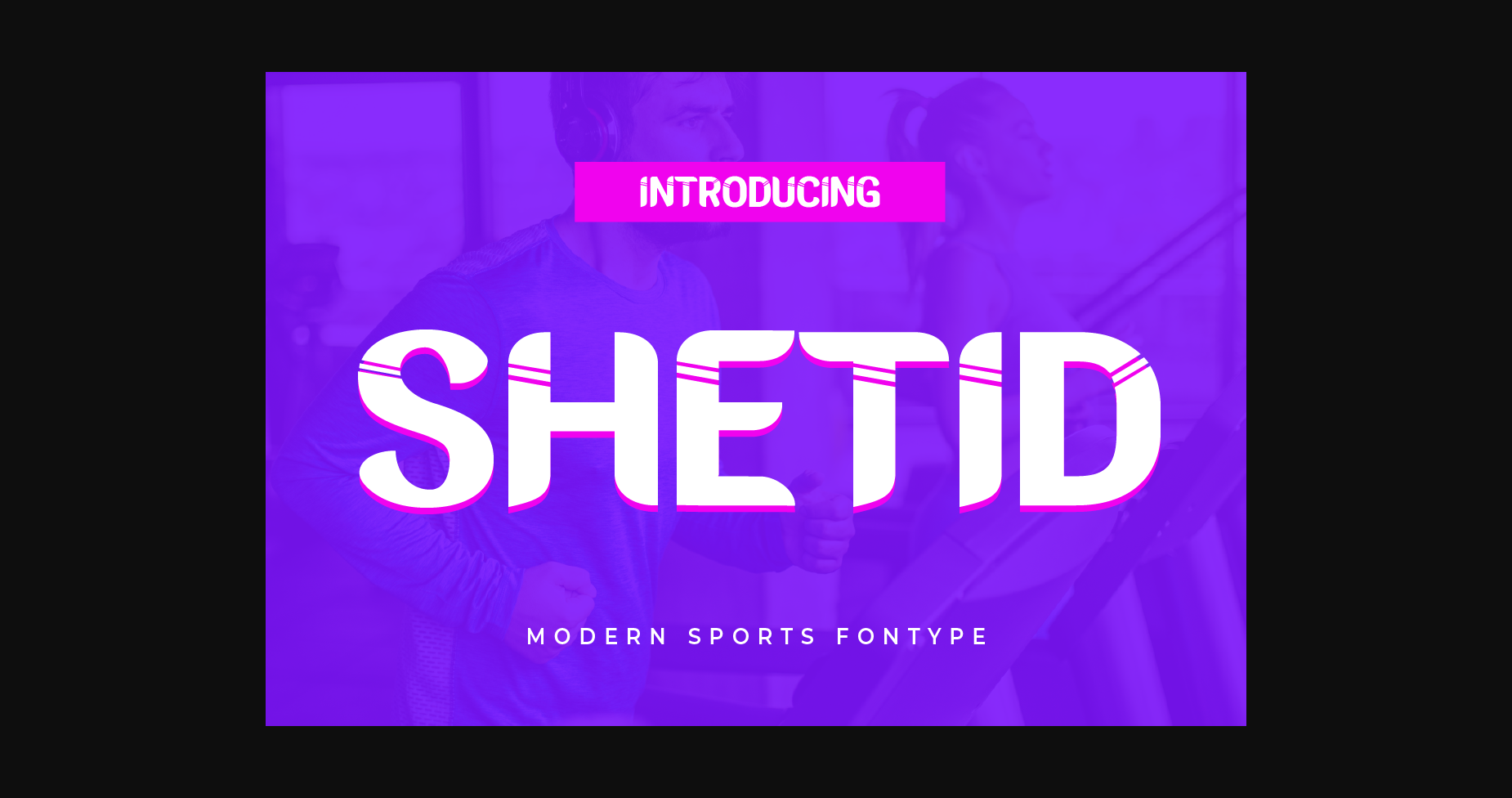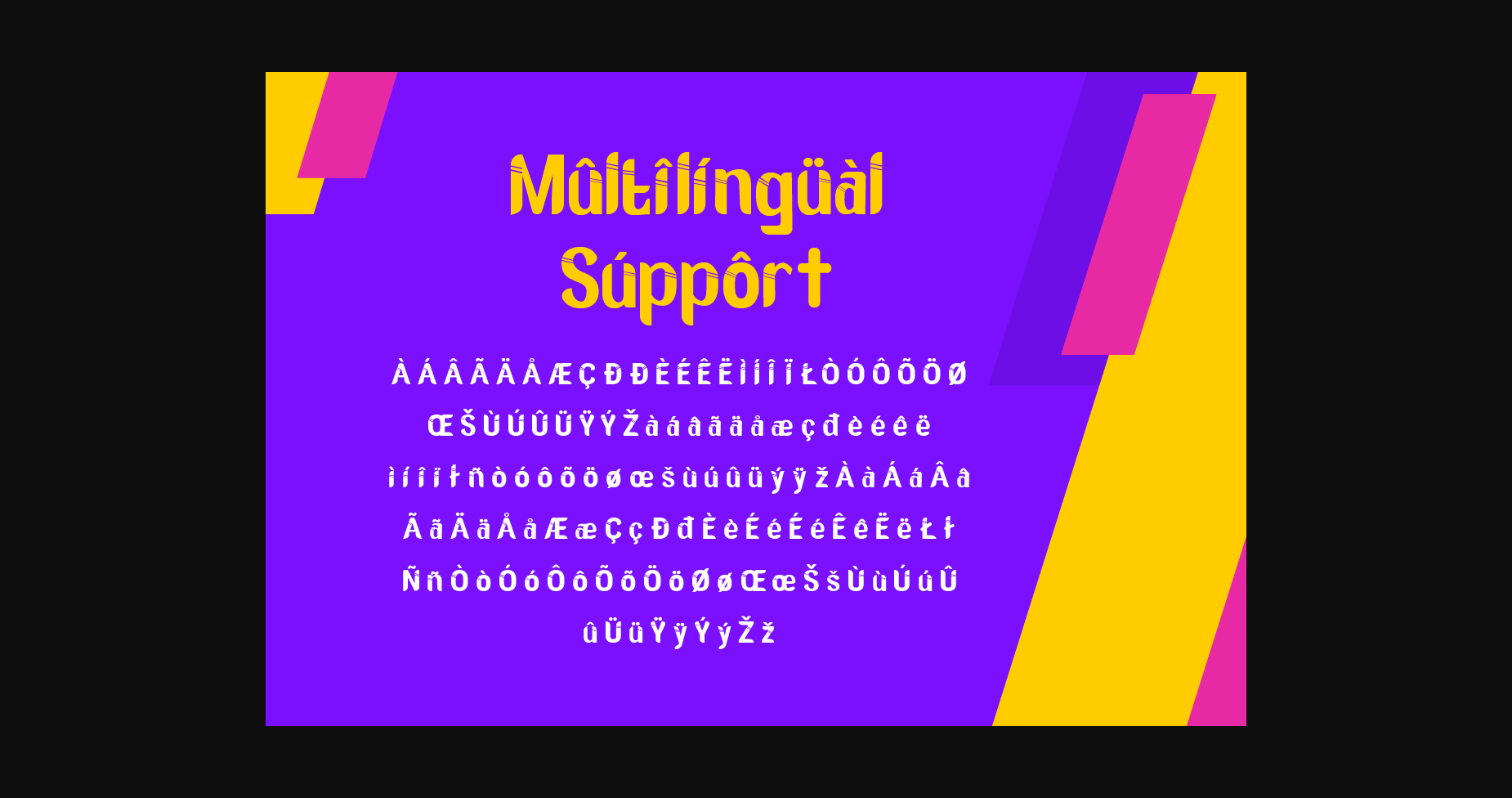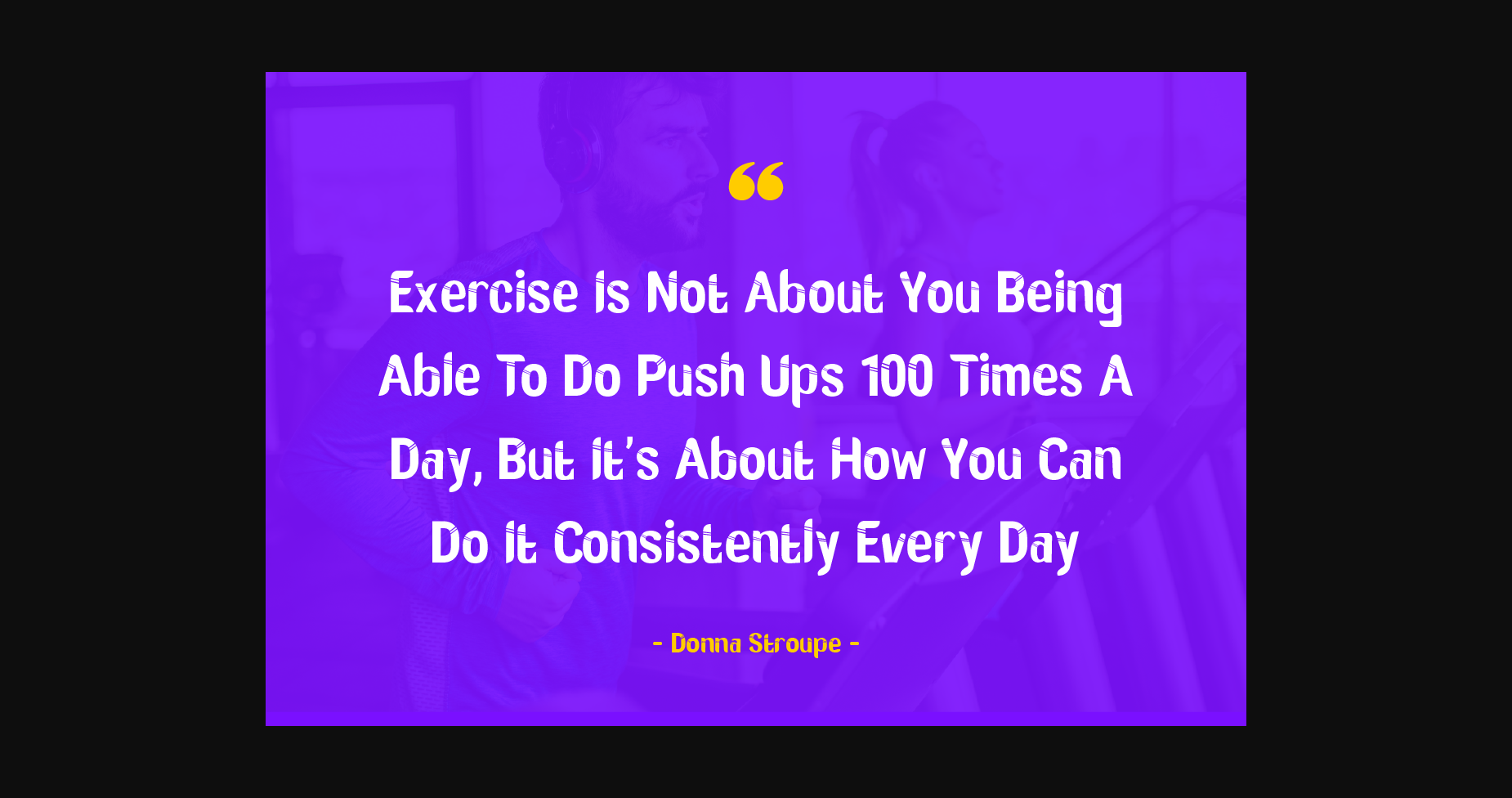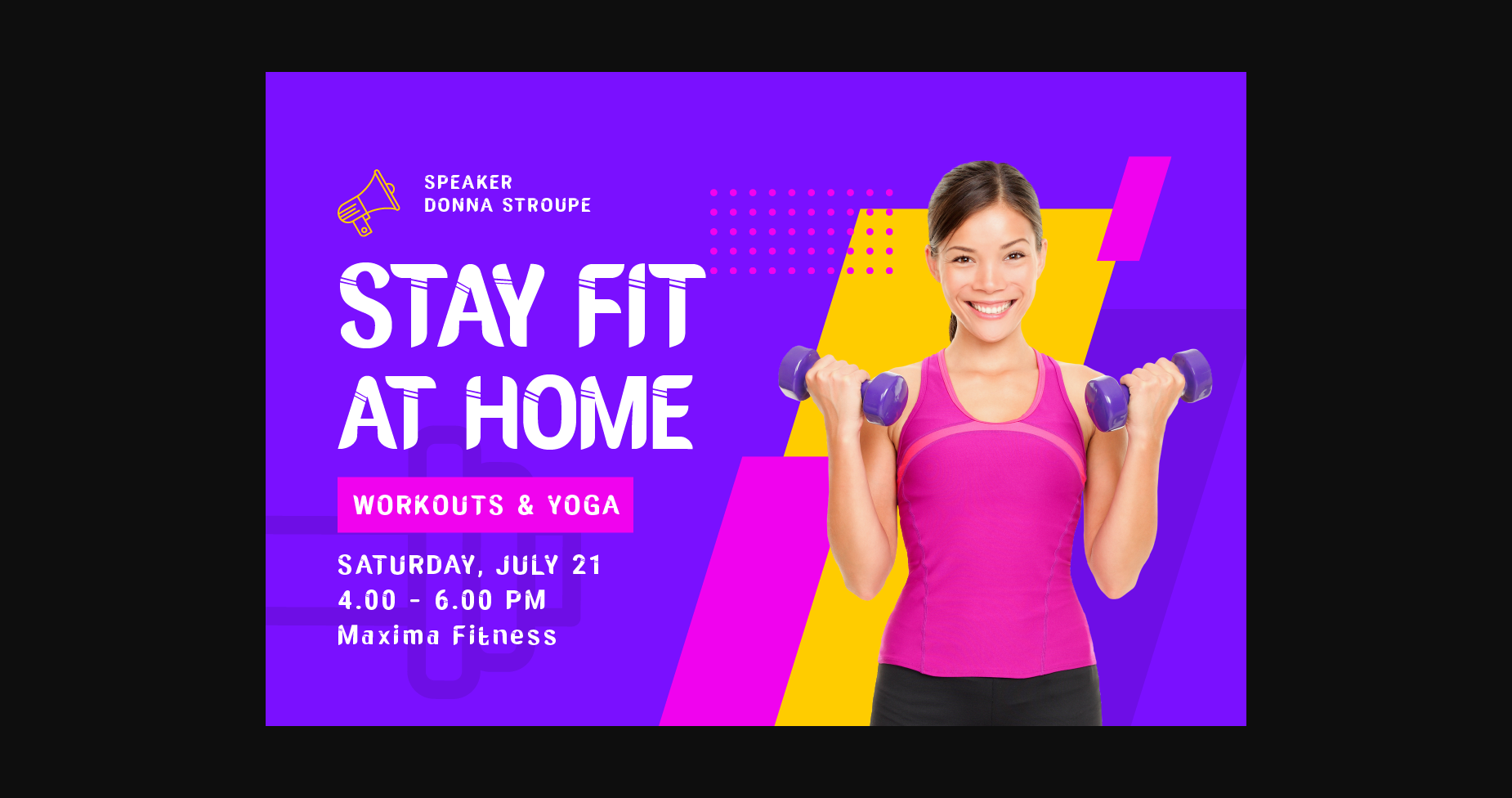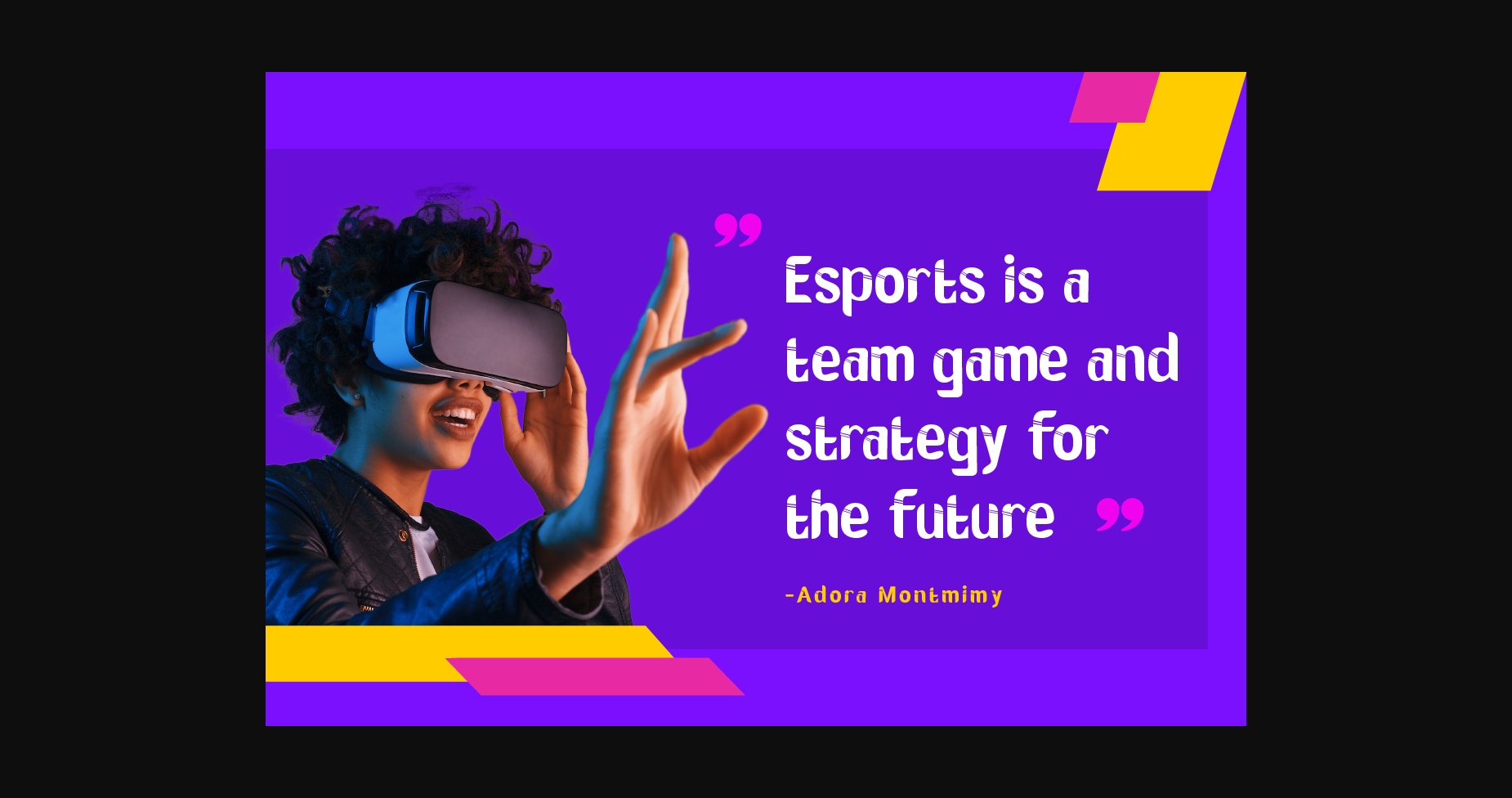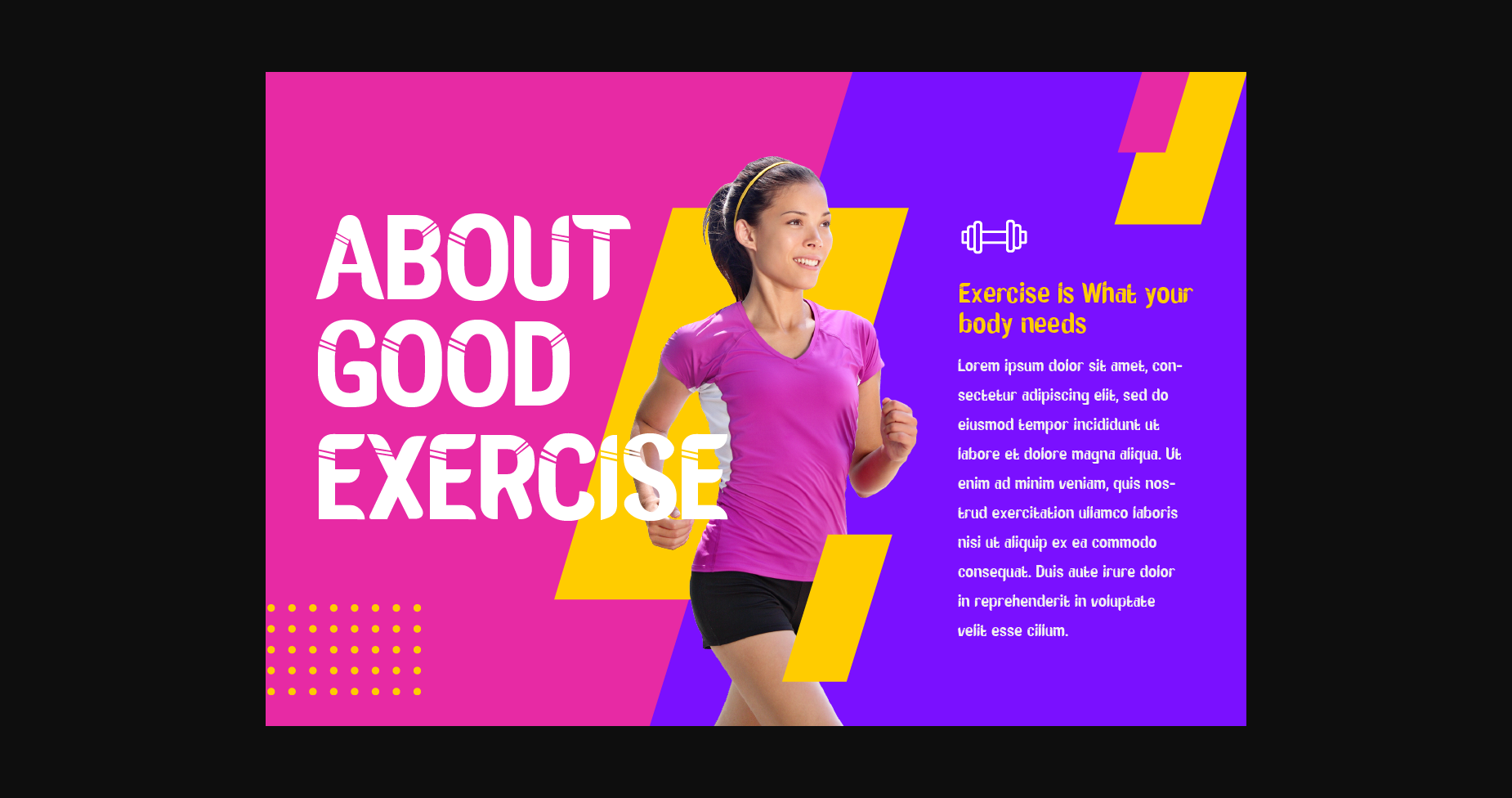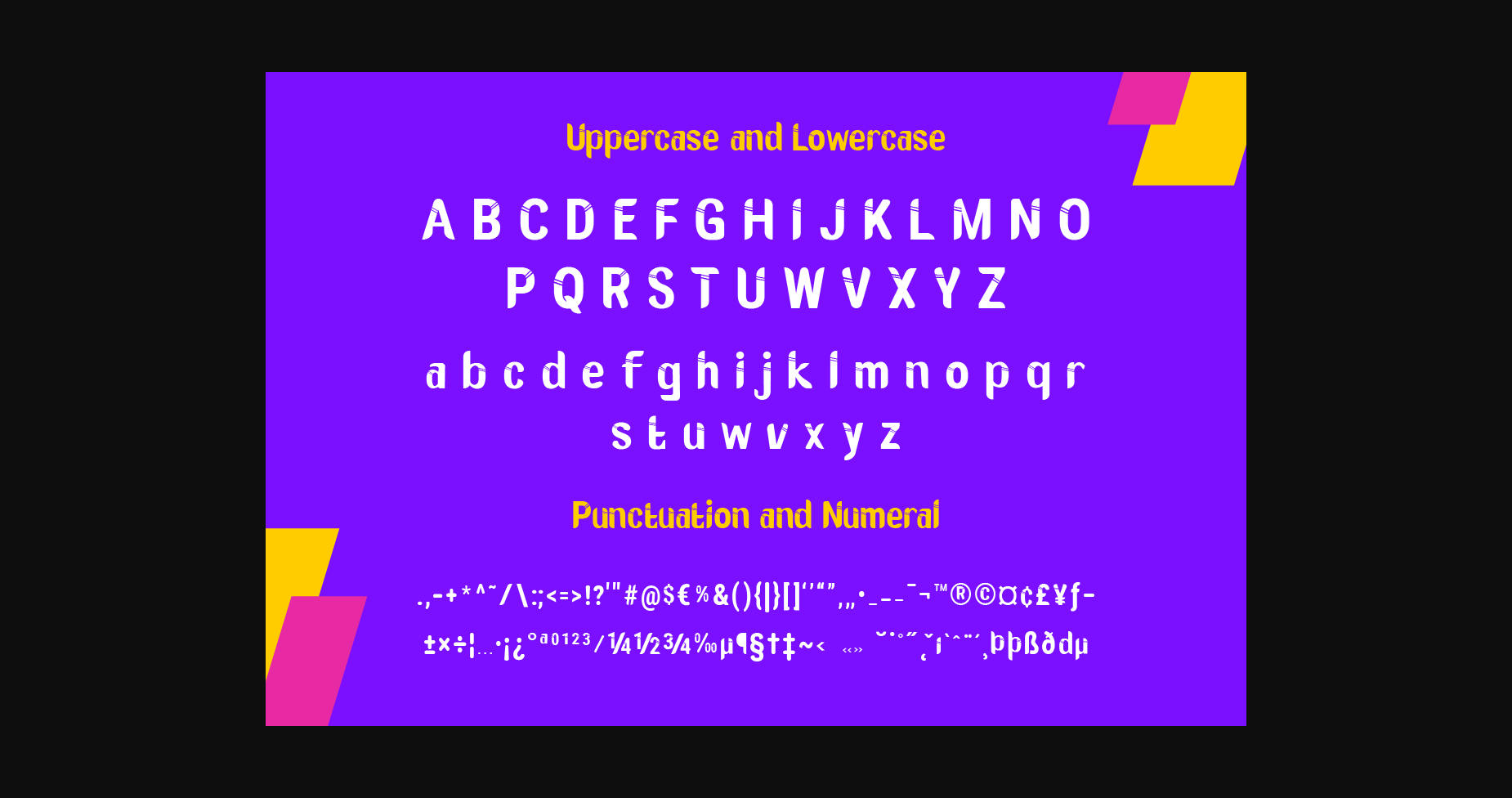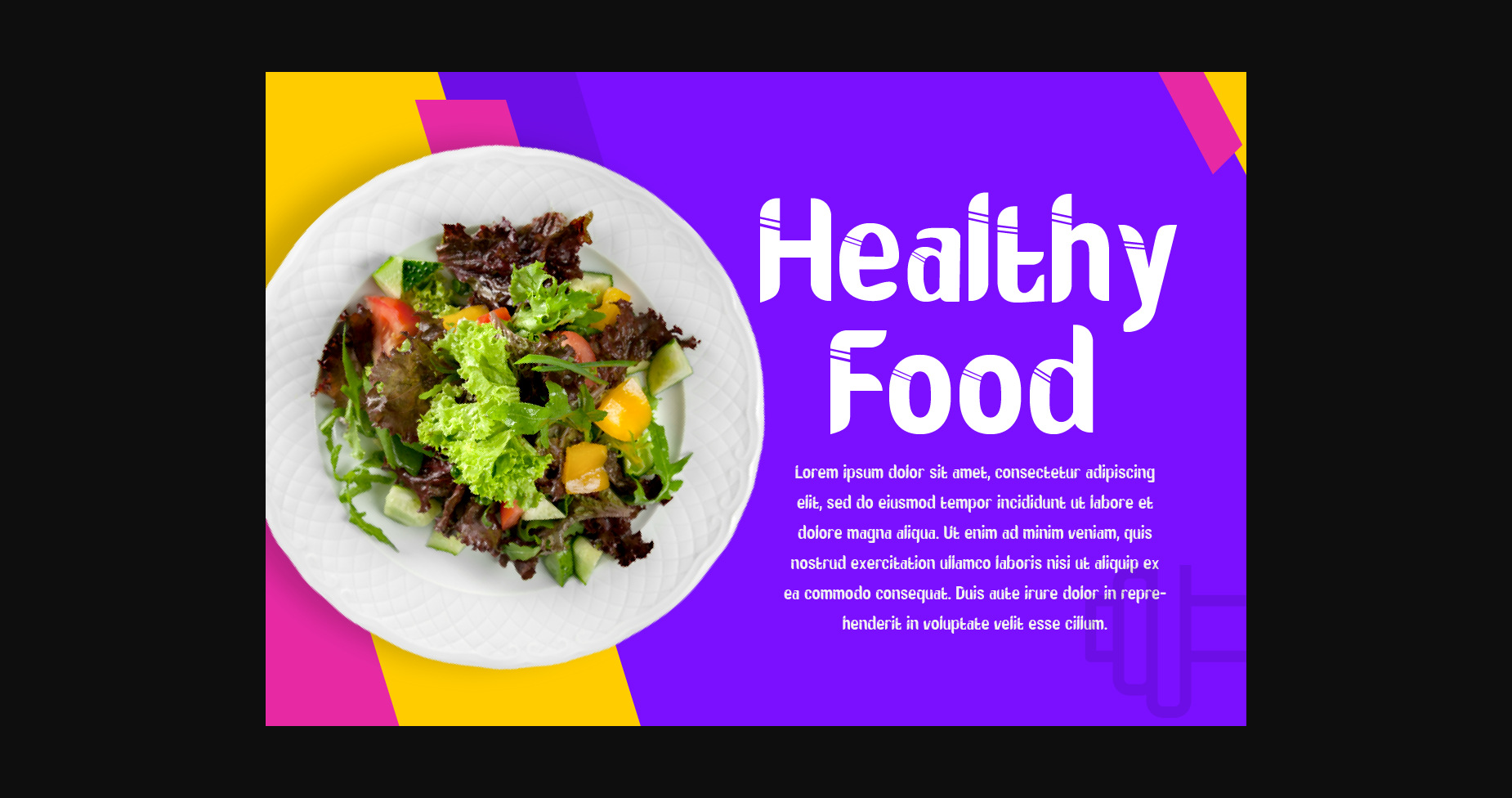
Shetid Font
About Shetid Font
Shetid Font – the perfect blend of modern typography.
Shetid is a modern typeface with a futuristic theme that is perfect for a variety of design projects. With its sleek and sharp lines, Shetid provides a dynamic and contemporary look to any design.
Shetid can be customized to fit a range of design styles and add a stronger futuristic feel to your product. Within 60 seconds, Shetid can capture the attention of potential customers with its modern and captivating appearance.